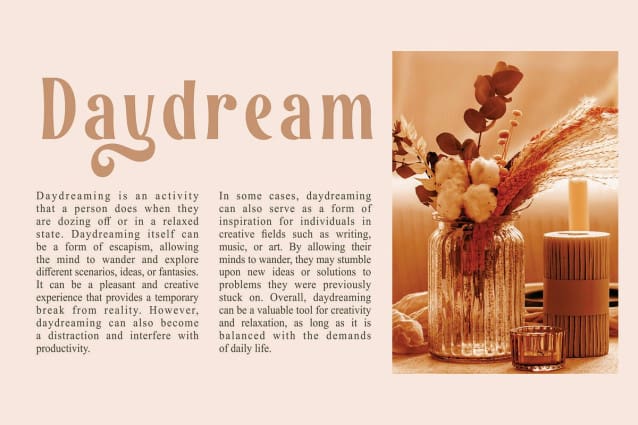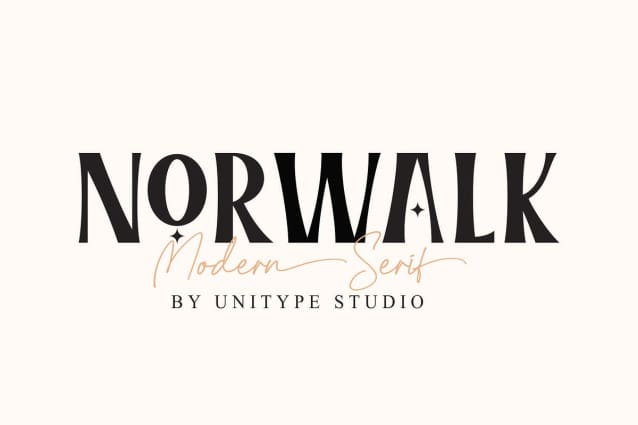
Norwalk Font
Norwalk Font – Modern Serif Font. Our latest digital modern serif font – a sleek and sophisticated typeface perfect for any creative project. With clean lines and elegant curves, this font is sure to make your designs stand out. Get your hands on it today and elevate your designs to the next level!
Ready to take your design game to the next level? Look no further than our digital modern serif font. Whether you’re creating a logo, website, or printed materials, this font is the perfect choice for adding a touch of class and sophistication.
The font comes in multiple weights and includes a full set of characters, making it incredibly versatile for all your design needs. Plus, with its easy-to-read and professional look, it’s the perfect choice for businesses or individuals looking to make a strong visual impact. Don’t settle for ordinary fonts – upgrade your designs today with our digital modern serif font!